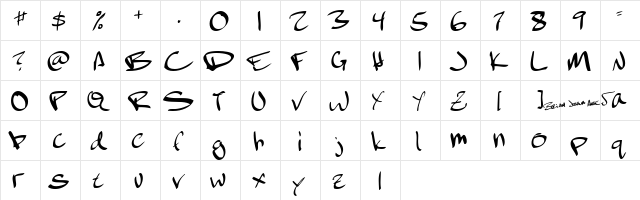
february handwritten
Design Context for february Typeface
february brings a calligraphic fluidity to the page — its connecting strokes and expressive curves give it an unmistakably human quality.
Font Pairing: Combine february with a simple geometric sans for maximum contrast — the tension between flowing curves and clean structure is a classic typographic pairing.
Pro Tip: Pair february with a clean sans-serif for supporting text. The contrast between fluid script and geometric structure creates an elegant typographic hierarchy.